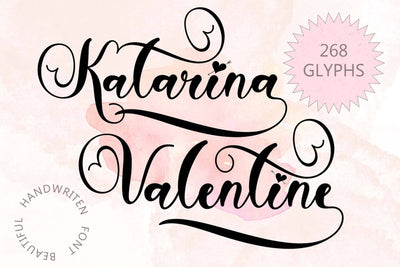
Katarina Valentine
"Katarina Valentine" is a beautiful and pretty handwritten font. This font is equipped with uppercase, lowercase, swashes, numerals, ligatures, punctuations and multilingual support. It is very suitable for weddings, invitations, valentines, photography, banners, branding, stickers, posters and others.